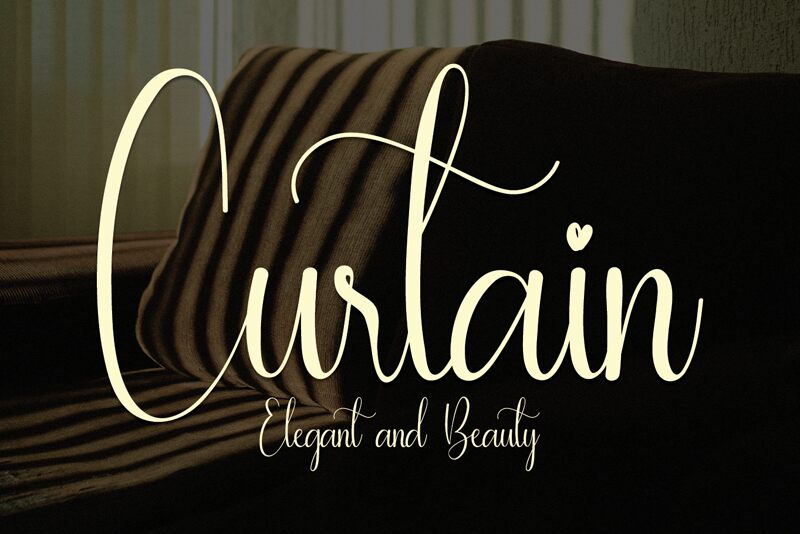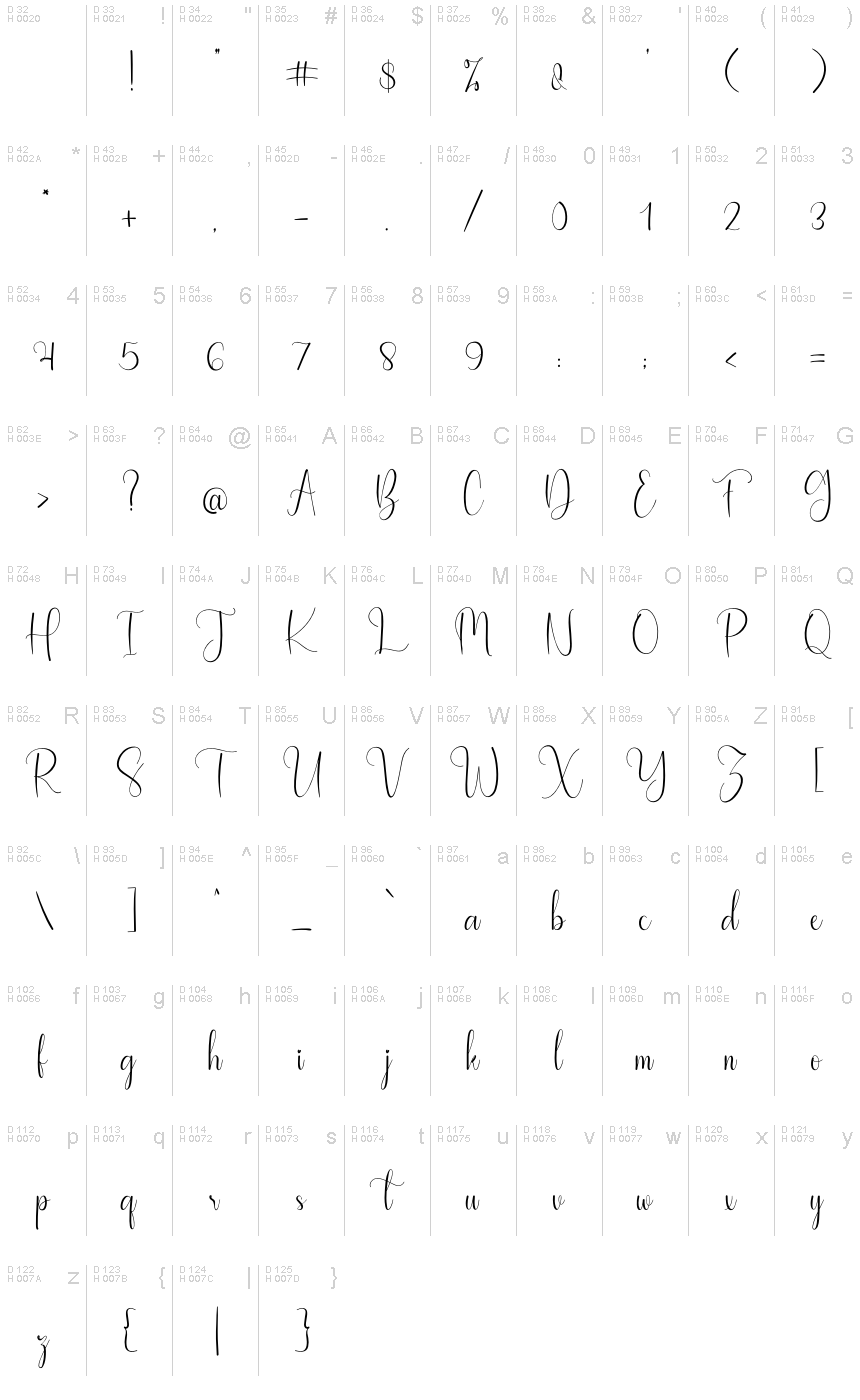
Curtain
Curtain, a captivating calligraphy script font designed by Behind the Ink, embodies a romantic and graceful essence. This light, condensed font features characters that seem to dance and flow seamlessly along the baseline, evoking a sense of refined elegance. The fluid, handwritten strokes lend a delicate, luxurious spark to any creative endeavor.
Curtain's versatility makes it a versatile choice for a wide range of design projects. Its charming and whimsical aesthetic effortlessly elevates branding, invitations, social media graphics, and more. The font's condensed width and light weight allow it to be employed in both subtle and impactful ways, ensuring a cohesive and visually striking final result.